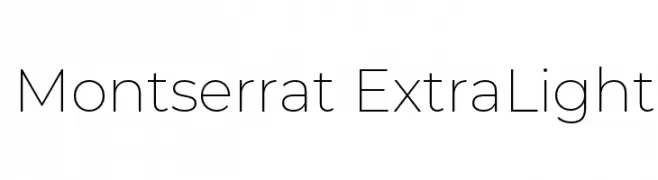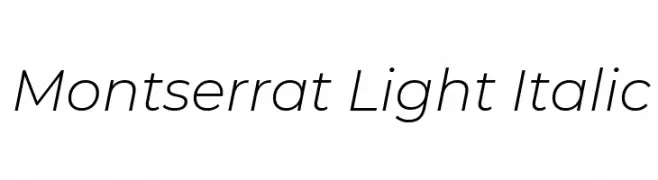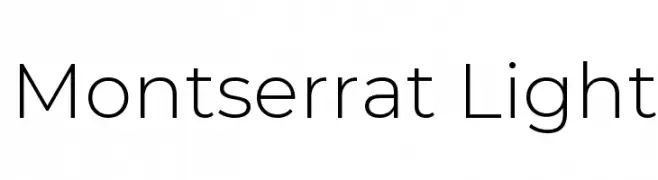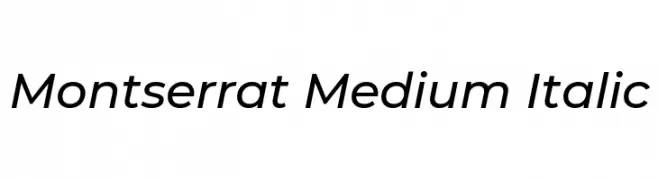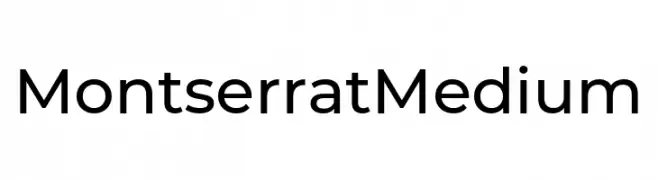
A bold, italic sans-serif font with a modern and dynamic style.
A modern, geometric sans-serif font with a clean and minimalist design.
A sleek, modern, and italicized font with thin strokes and high legibility.
A modern, italic sans-serif font with smooth curves and uniform stroke width.
A modern, geometric sans-serif font with a clean and minimalistic design.
A sleek, modern, and light italic font with smooth curves and clean lines.
A modern, geometric sans-serif font with balanced proportions.
A modern, geometric sans-serif typeface with consistent stroke weight and balanced characters.
A modern, italic font with clean lines and a dynamic style.
A modern, geometric sans-serif font with balanced proportions and a clean aesthetic.